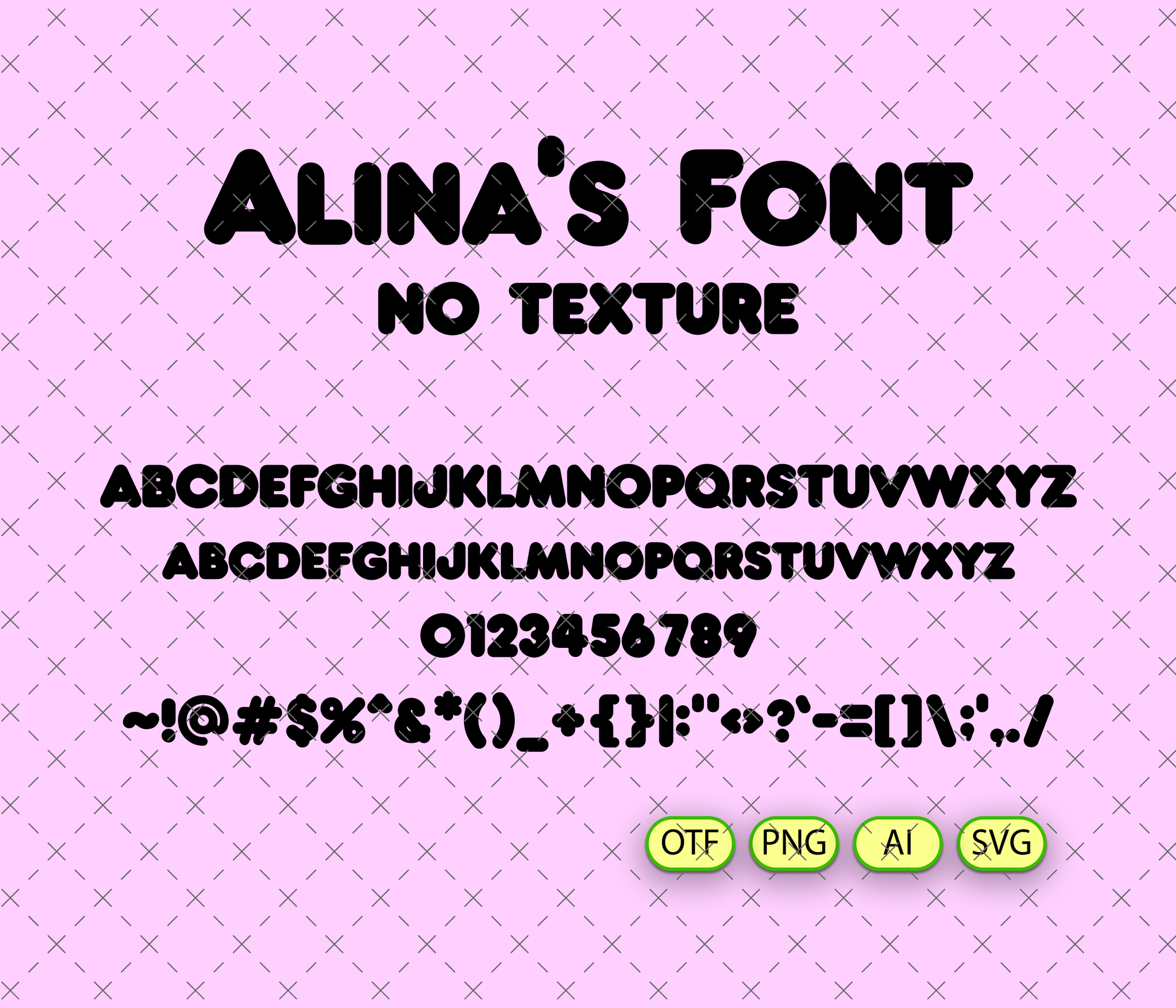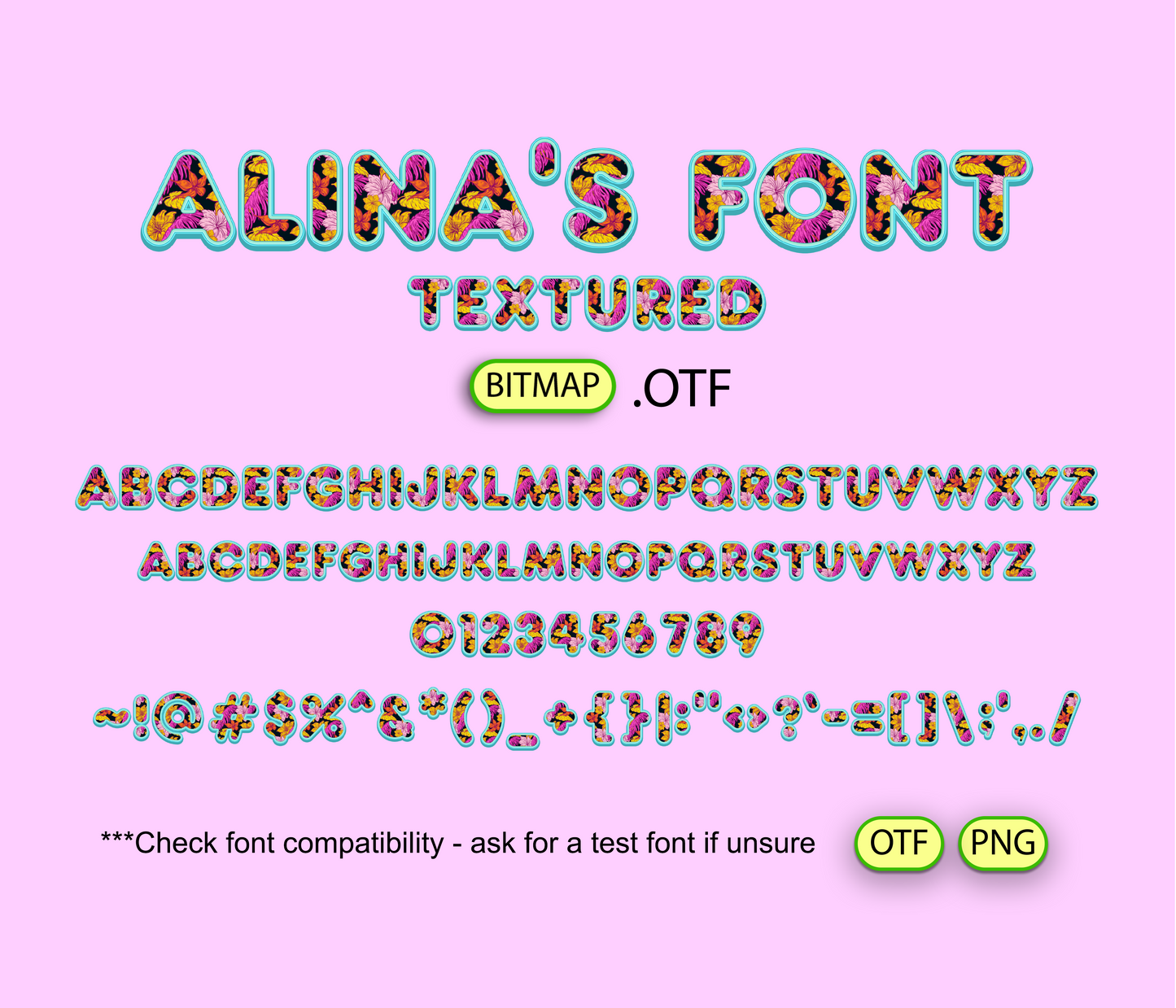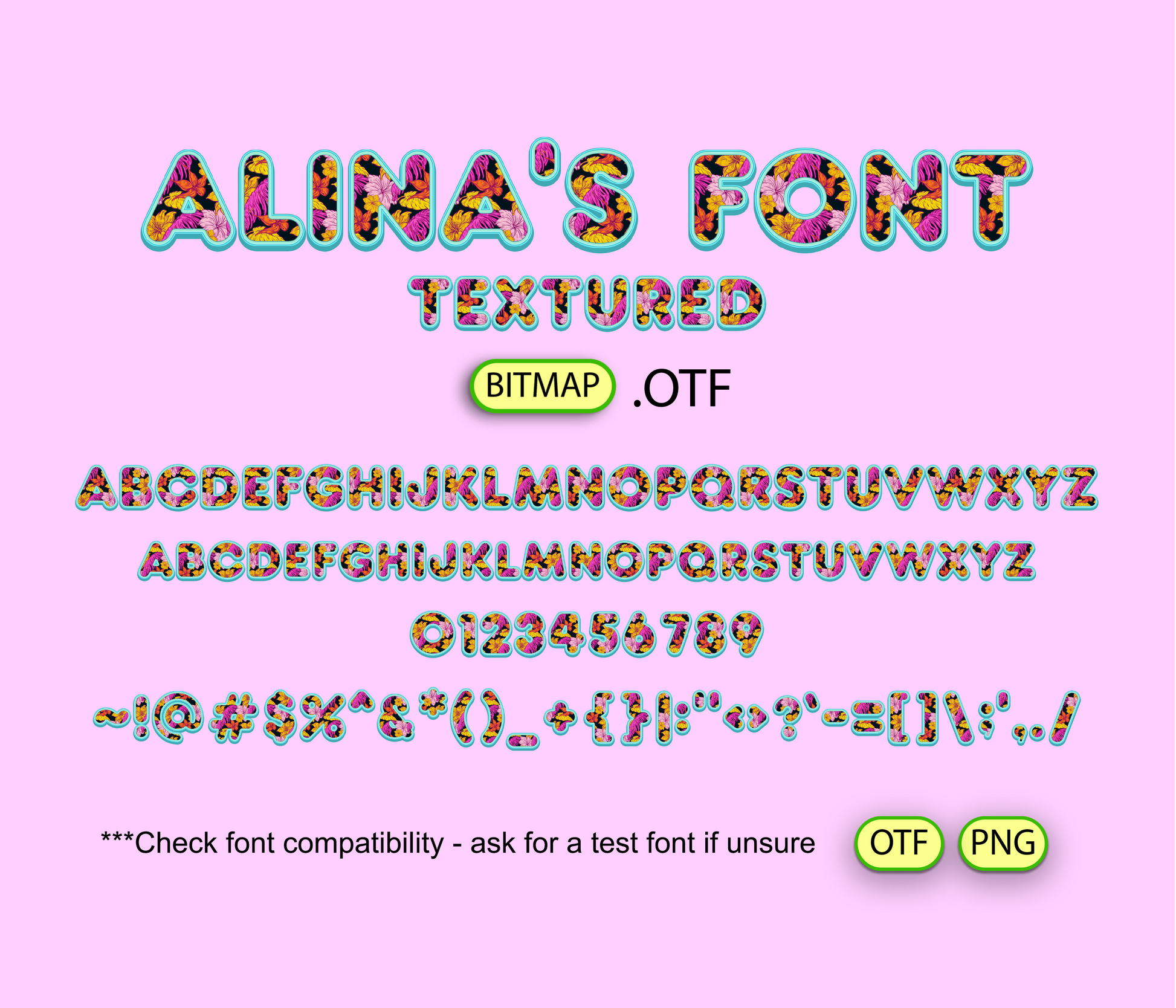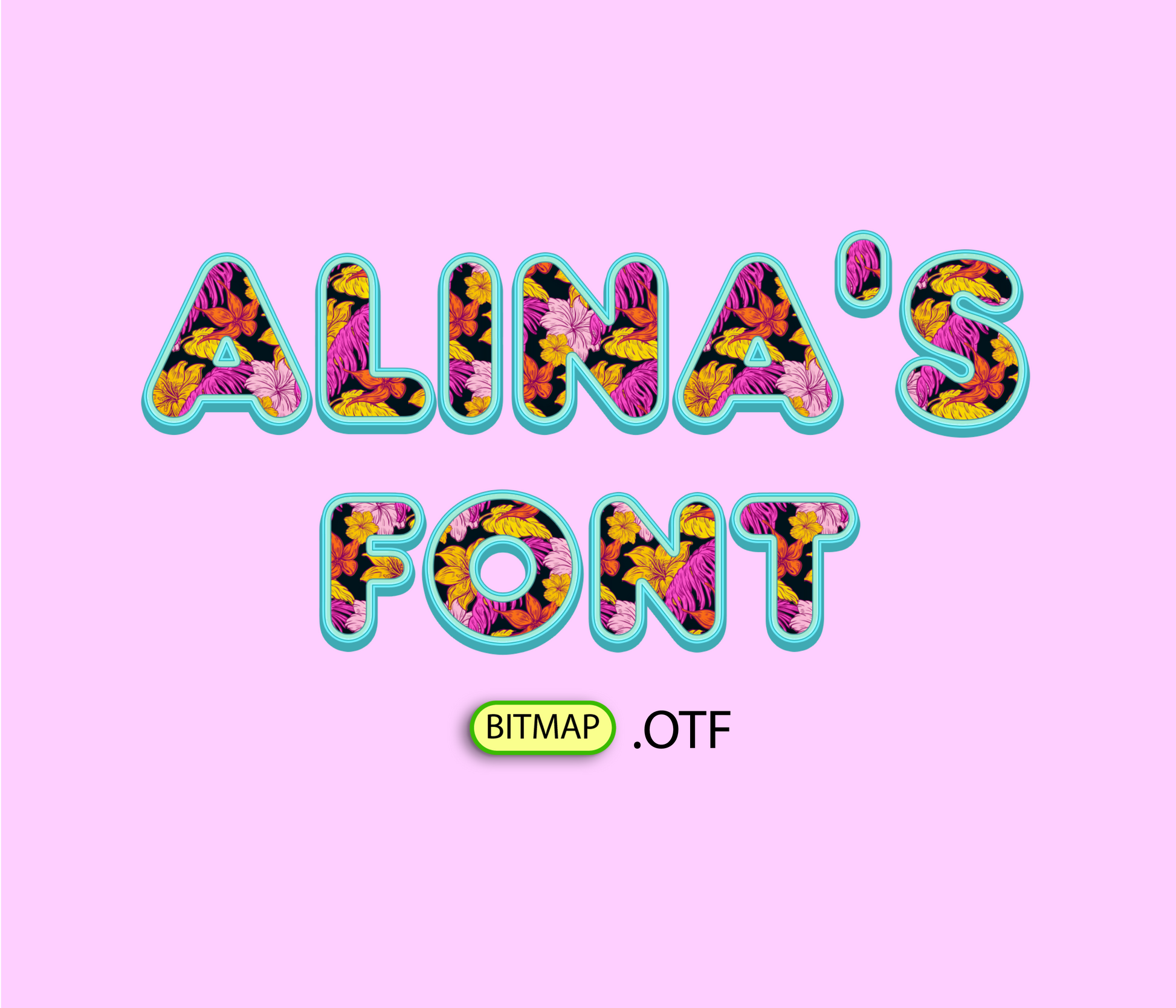
Tropical Floral Font Textured
Drift into the lush paradise of sun-kissed botanical splendor with our Tropical Floral Font Textured, capturing the essence of petal-woven lettering beauty and island-bloom graphic mystique. Perfect for nature enthusiasts, themed event planners, content creators, and creative professionals, this font brings the bold, timeless spirit of vibrant floral garden stories to your projects. Create eye-catching invitations, merchandise, or digital content with the dramatic energy of blossoming tropical paradise narratives.
Blossoming Typography for Nature Design & Creative Projects
Our Tropical Floral Font Textured features graceful, intricately bloomed letterforms with sun-drenched petal textures reflecting the world of exotic flower gardens and lush rainforest canopy settings.
- Event Promotions: Craft breathtaking invitations, posters, and banners for garden parties, tropical themed celebrations, and gatherings that embody the spirit of blossoming floral paradise entertainment
- Merchandise Design: Magnificent for t-shirts, posters, stickers, and accessories that radiate the vibrant aesthetic of tropical flower culture themes
- Digital Media: Blossom websites, blogs, and social media into full bloom with stunning headers and graphics that overflow with the beauty of exotic island floral wonder
- Creative Content: Weave genuine botanical elegance into nature artwork, editorial designs, and creative projects inspired by breathtaking tropical garden tales
- Personal Projects: Bloom festive energy throughout scrapbooking, DIY crafts, and home decor inspired by the world of enchanting exotic floral characters
Many seek an online font generator to replicate the appearance of the Tropical Floral Font. Do not be fooled! No generator can bloom with the natural authenticity of our font, which comes in a clean outline version perfect for cutting machines.
Our font celebrates the world of exotic botanical stories and sun-drenched tropical garden discovery, empowering your projects with its bold and timeless spirit. Whether crafting promotional materials, designing themed products, or adding a tropical floral touch to personal projects, this font communicates the vibrant essence of island paradise floral entertainment. Ready to bloom exotic mystique into your creations? This font is your most blossoming companion for eye-catching, impactful design.